Best Display Fonts with download links.š£
Display fonts are specifically designed for creating impactful visuals in large formats. These fonts excel in settings like packaging design, logo design, advertisements, posters, and headlines, where their unique and often elaborate details shine. Unlike body text fonts, display fonts prioritize aesthetic appeal and character over readability in small sizes, making them ideal for capturing attention and communicating a brandās personality.
Aikonig Font
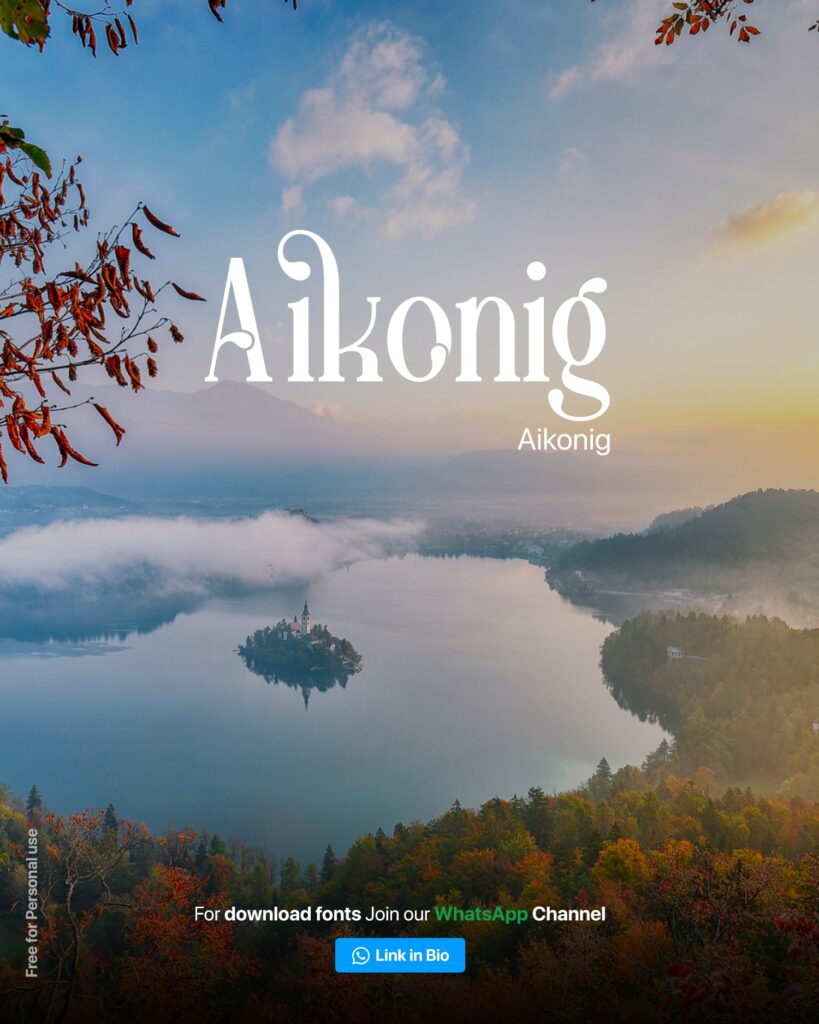
Althy Font
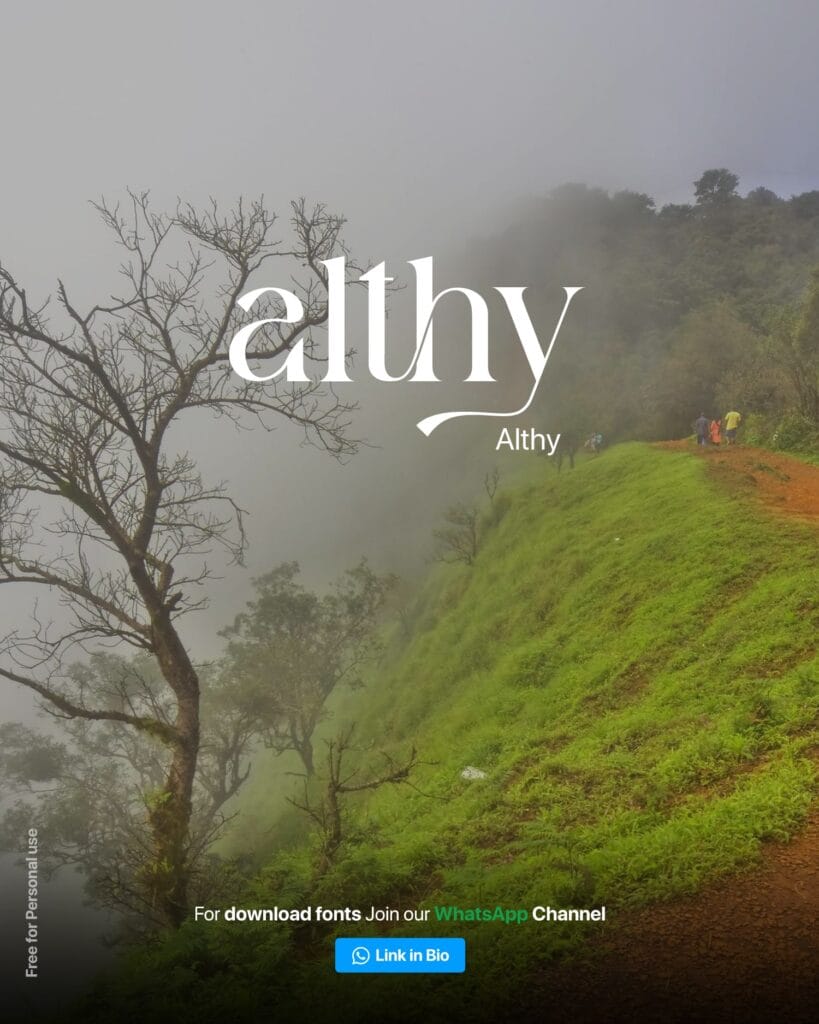
Balme Font
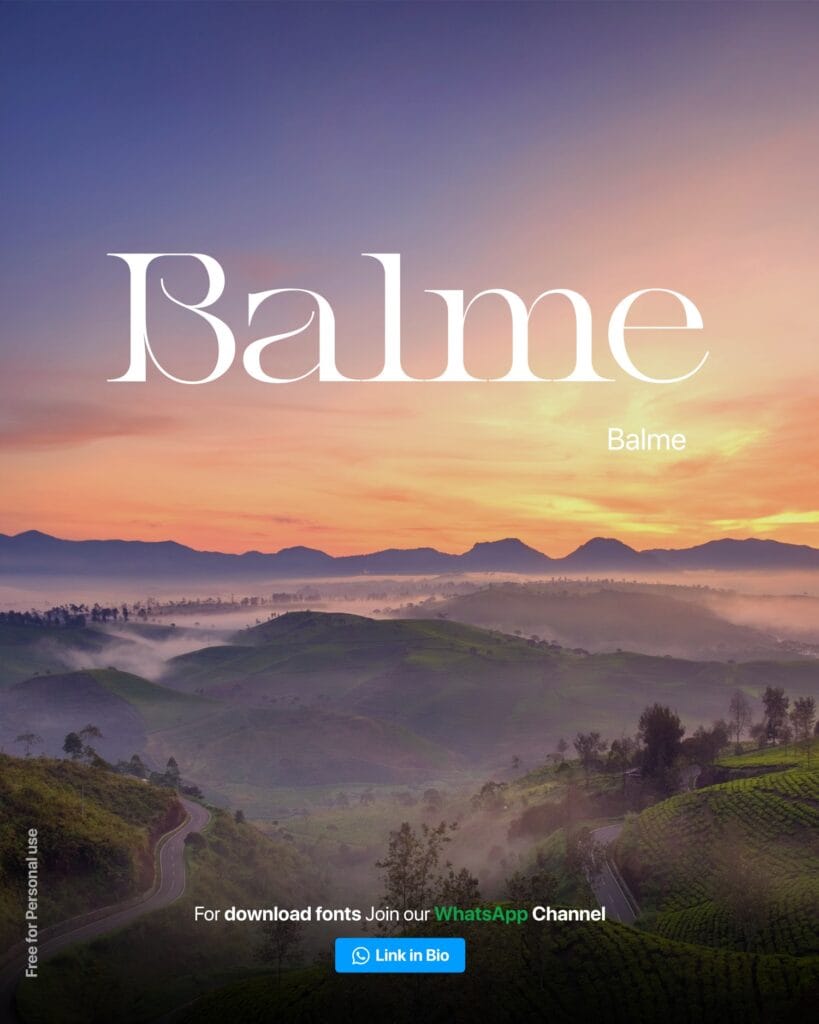
Bikave font
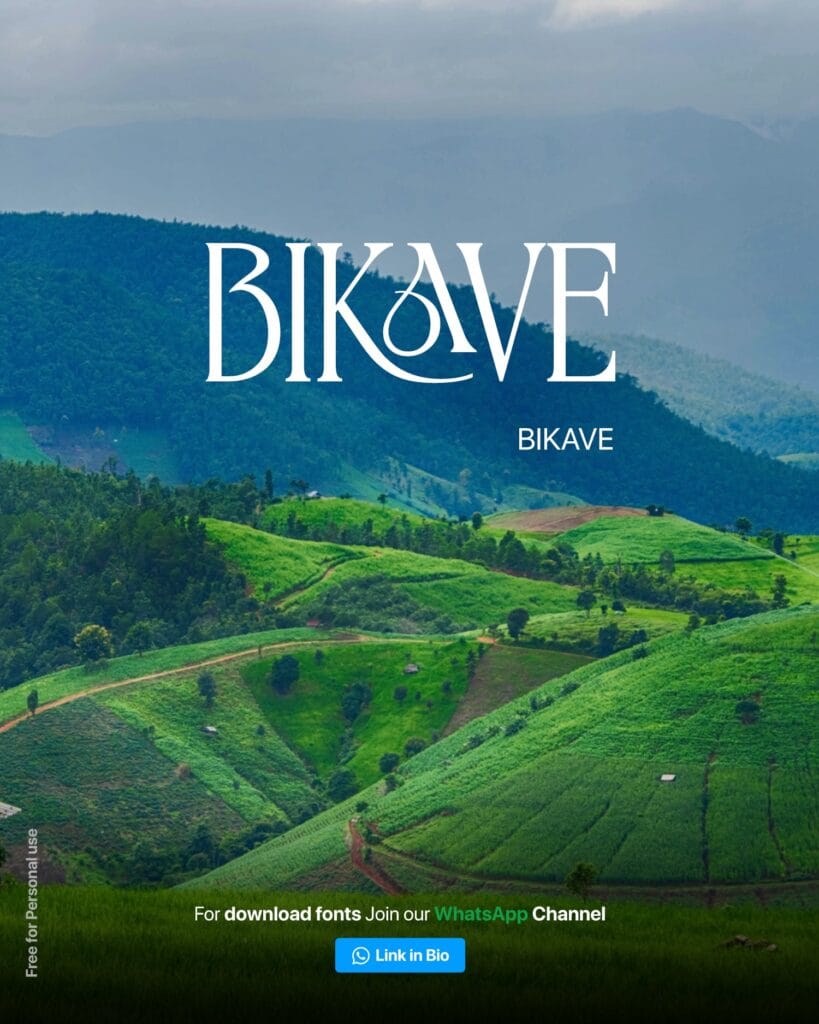
Refin Font
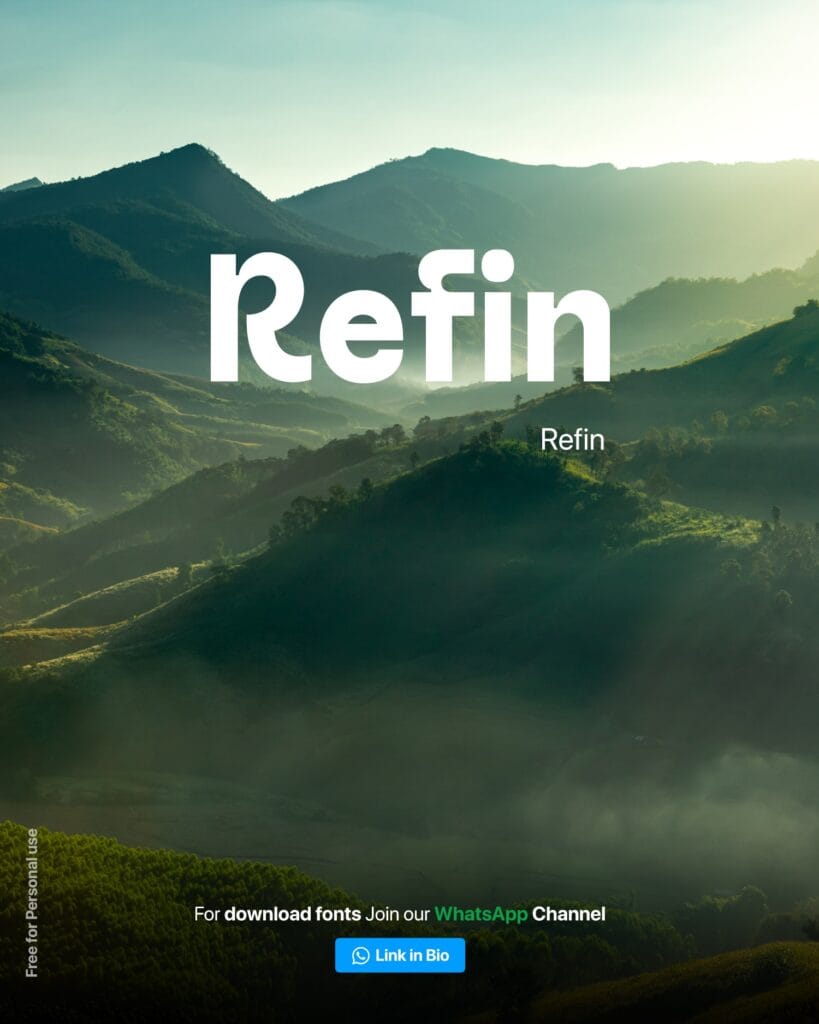
Mila Font